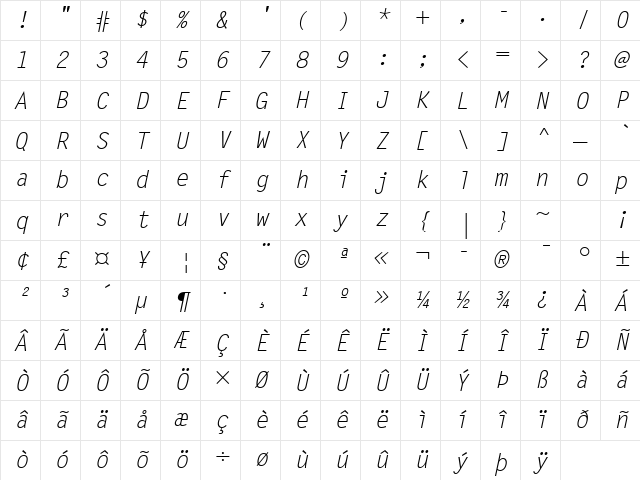
Letter GothicPS takes a clean, functional approach - its unadorned letterforms prioritise legibility and work reliably across screen and print environments. The slanted form adds forward momentum and visual energy.
Font Pairing: Works well alongside a characterful serif or display font that can carry the expressive load while Letter GothicPS handles the functional copy.
Pro Tip: Use Letter GothicPS for UI labels, navigation, and short-form body copy where clean legibility is the priority.